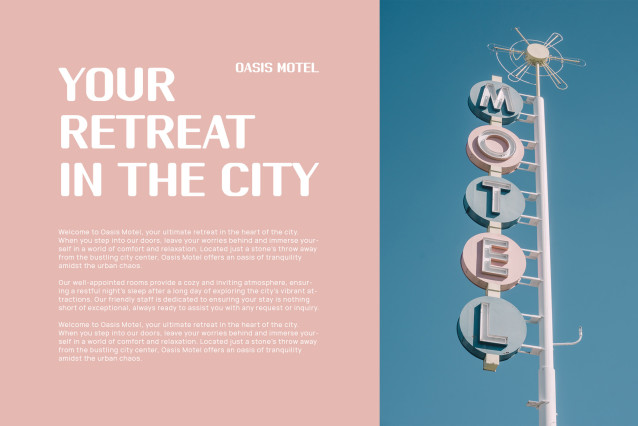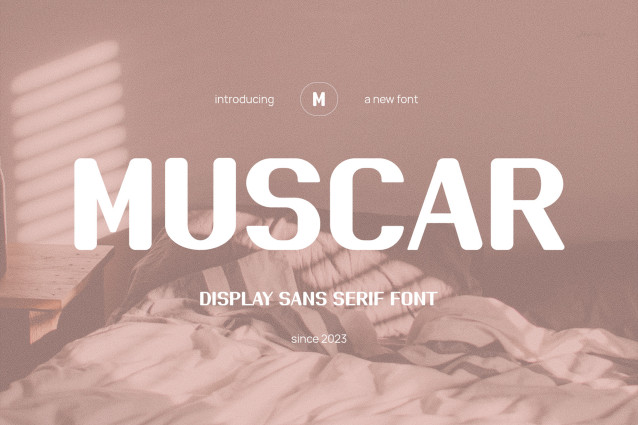
Muscar Font
Muscar Font, modern sans serif font with elegant style this is perfect for branding, logos, invitation, magazines, product packaging and more.